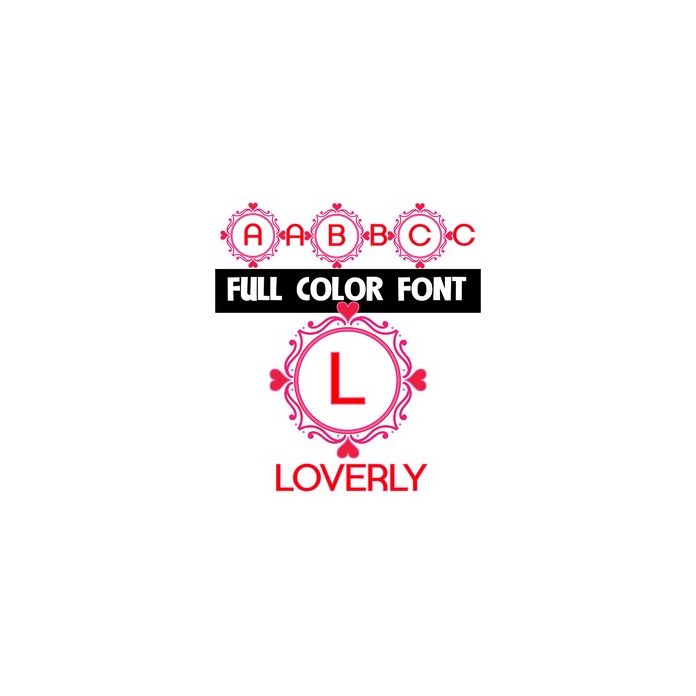
This full-color font features an uppercase with a heart-studded frame for a beautiful monogram. This font works best for titles, displays, posters and more. Please note color fonts will show as black in non compatible programs. This font type is compatible with Silhouette Studio.